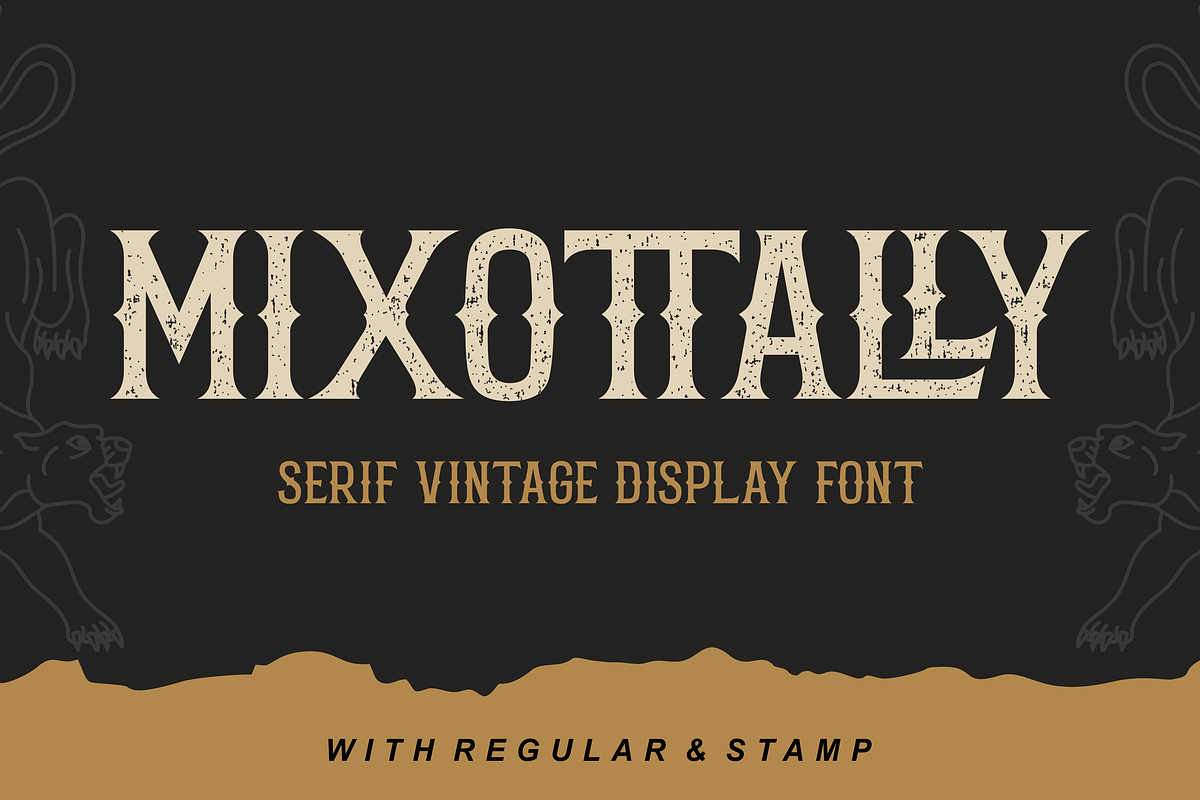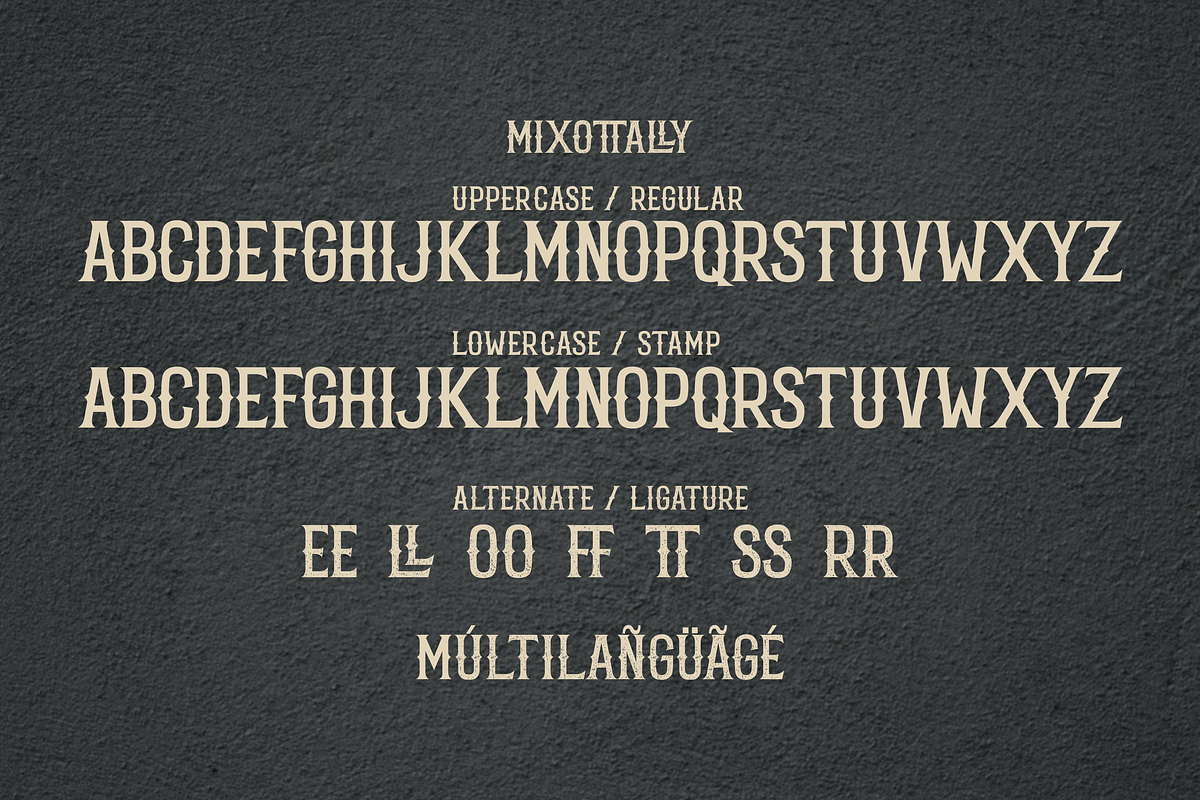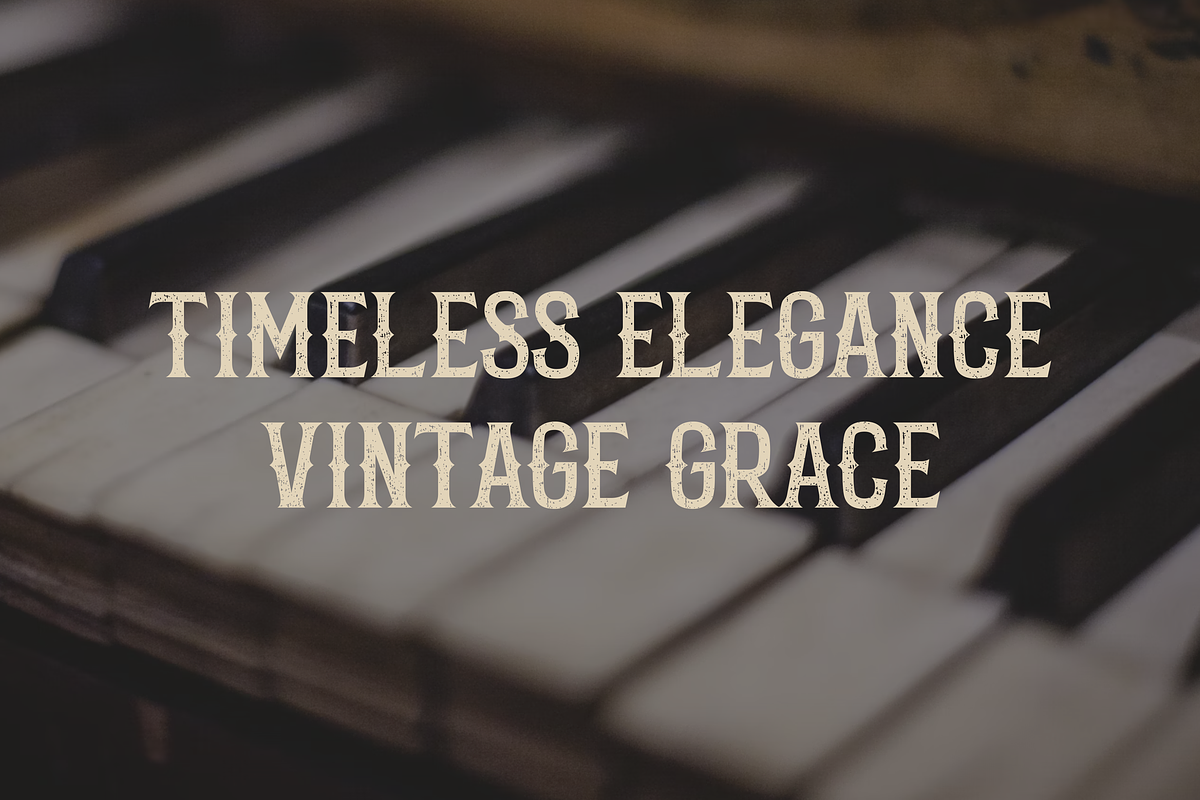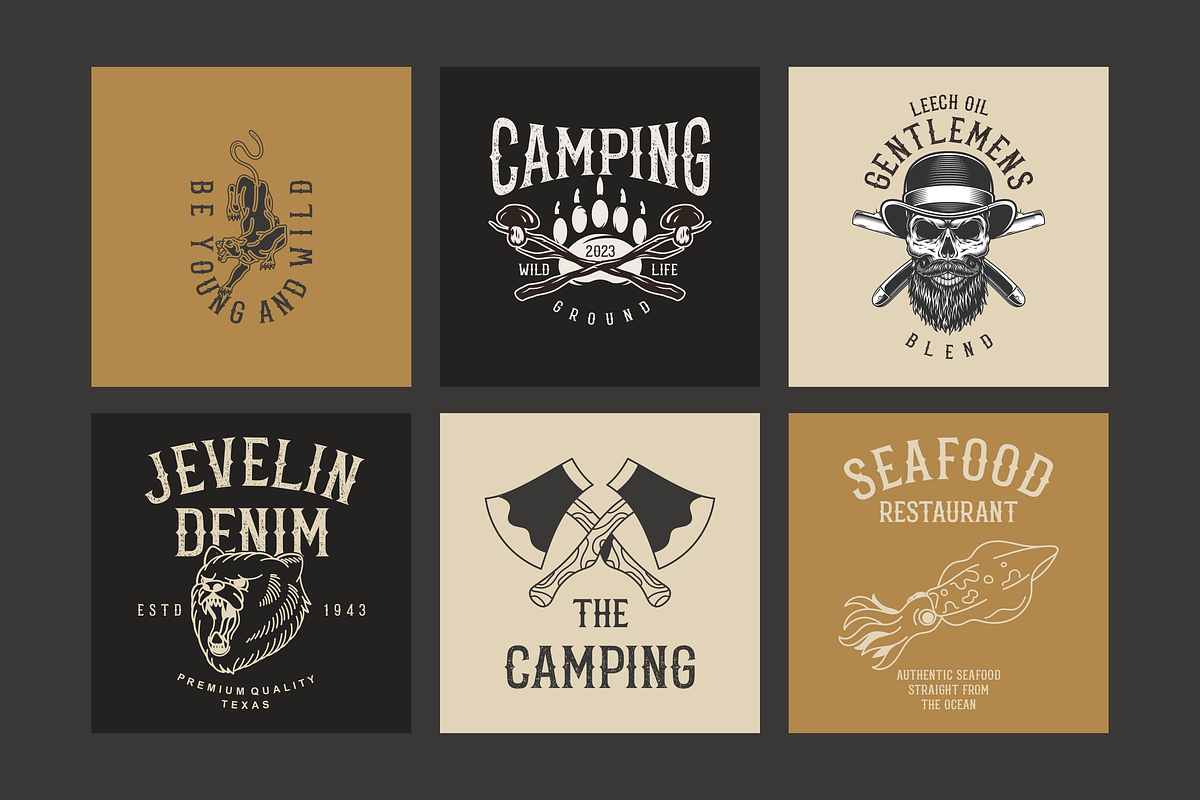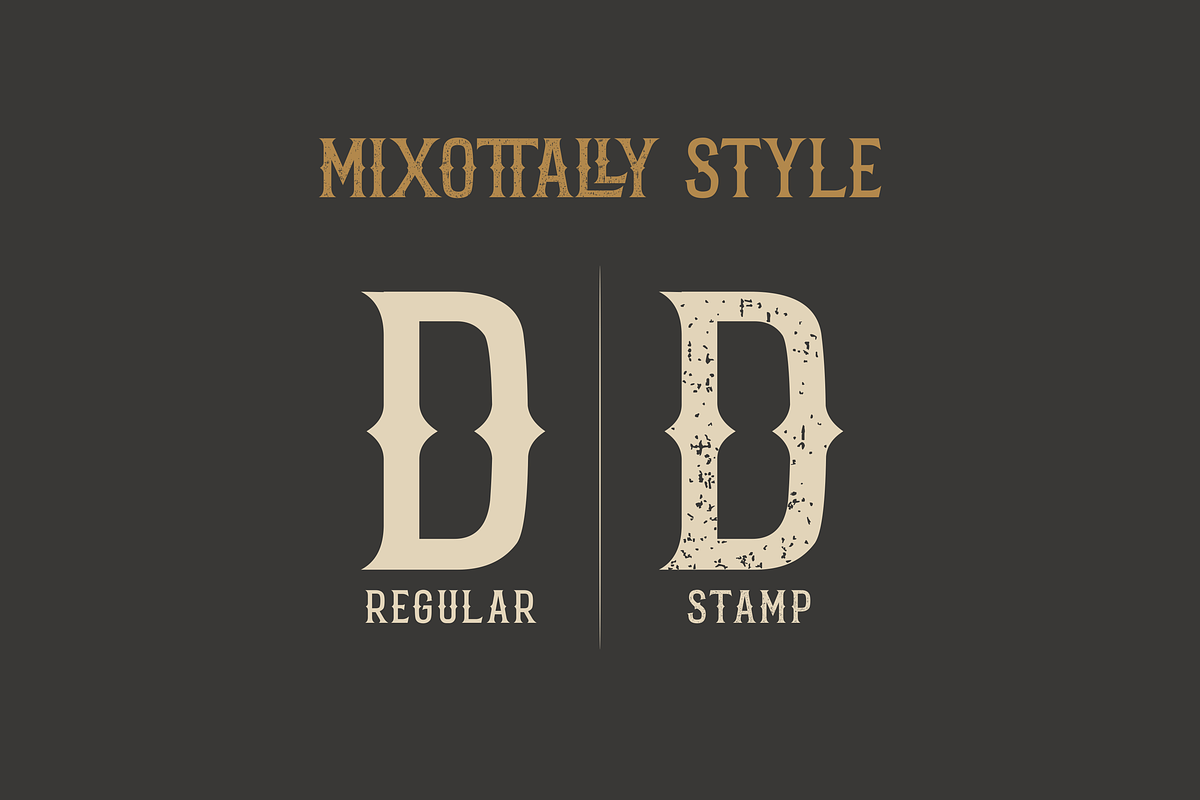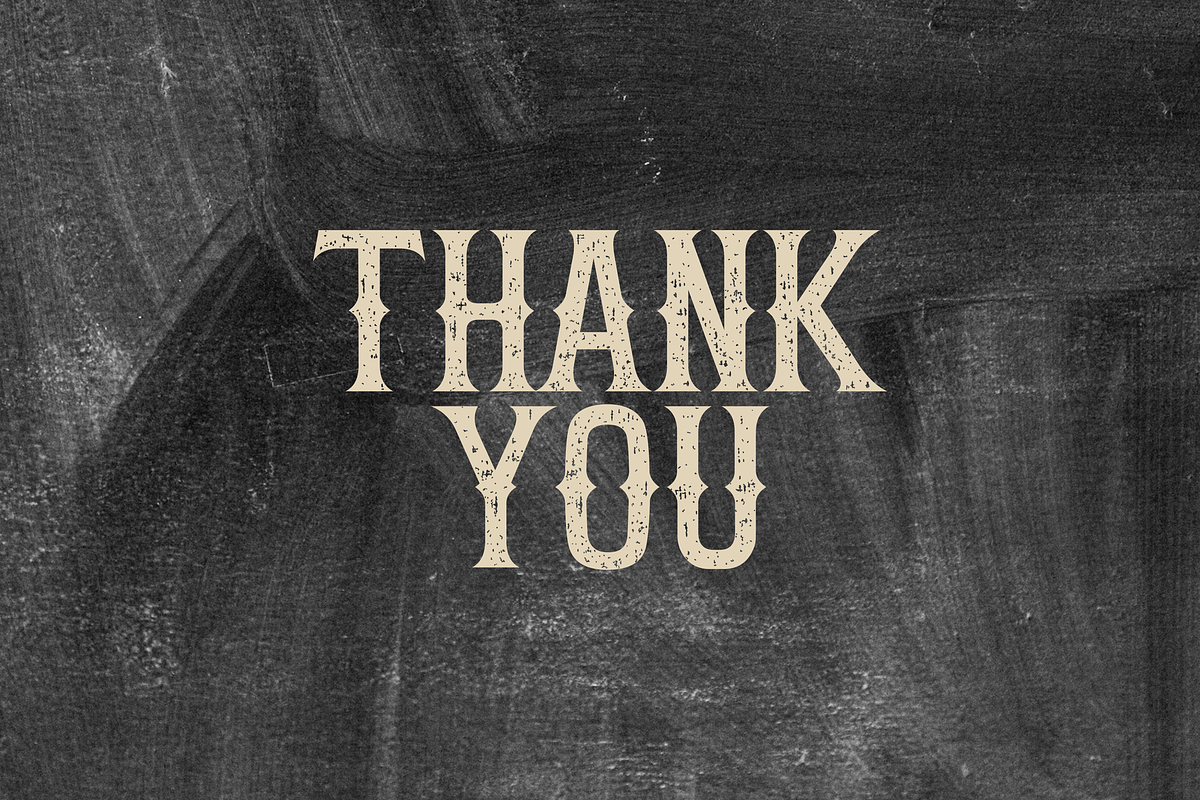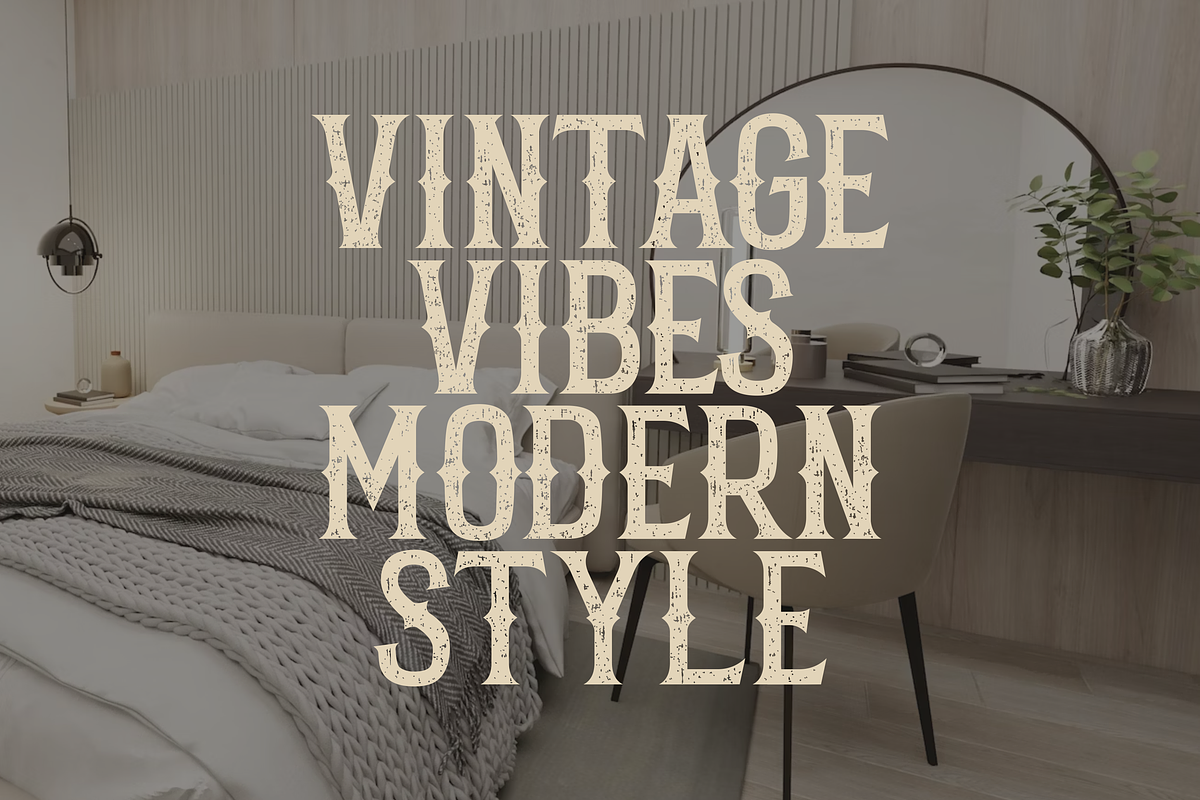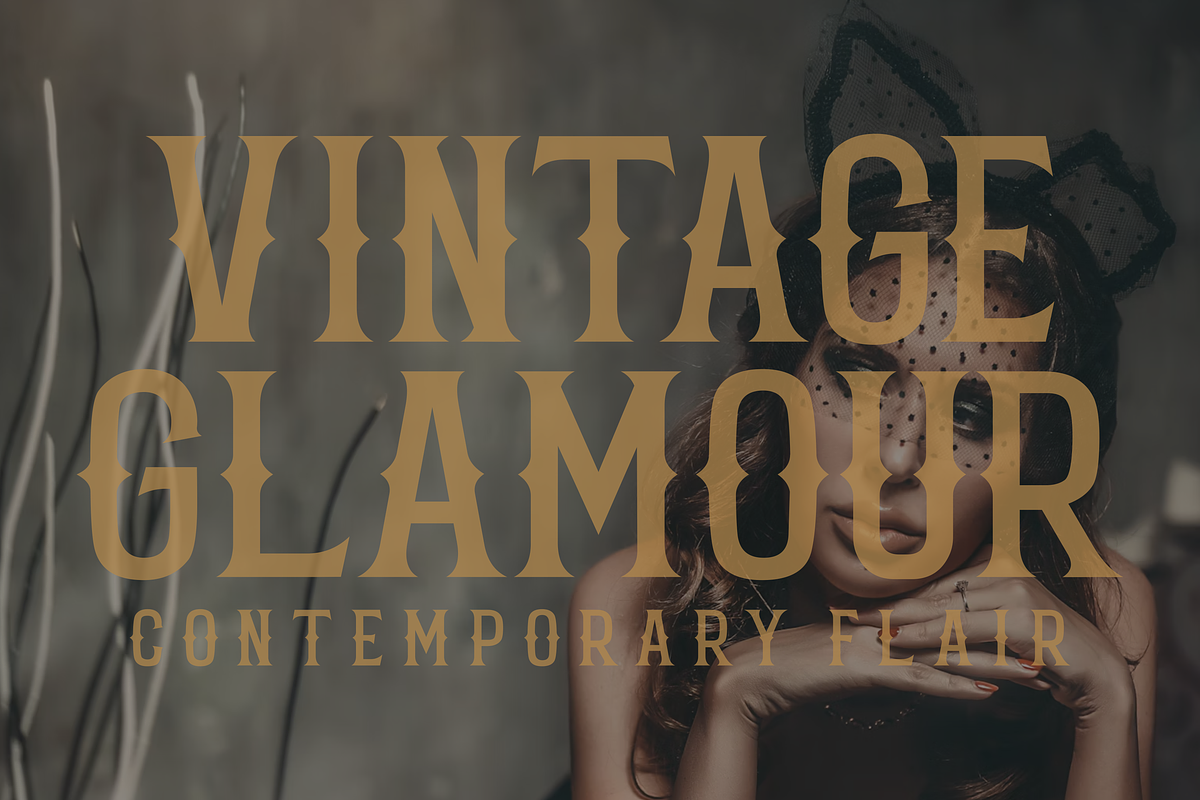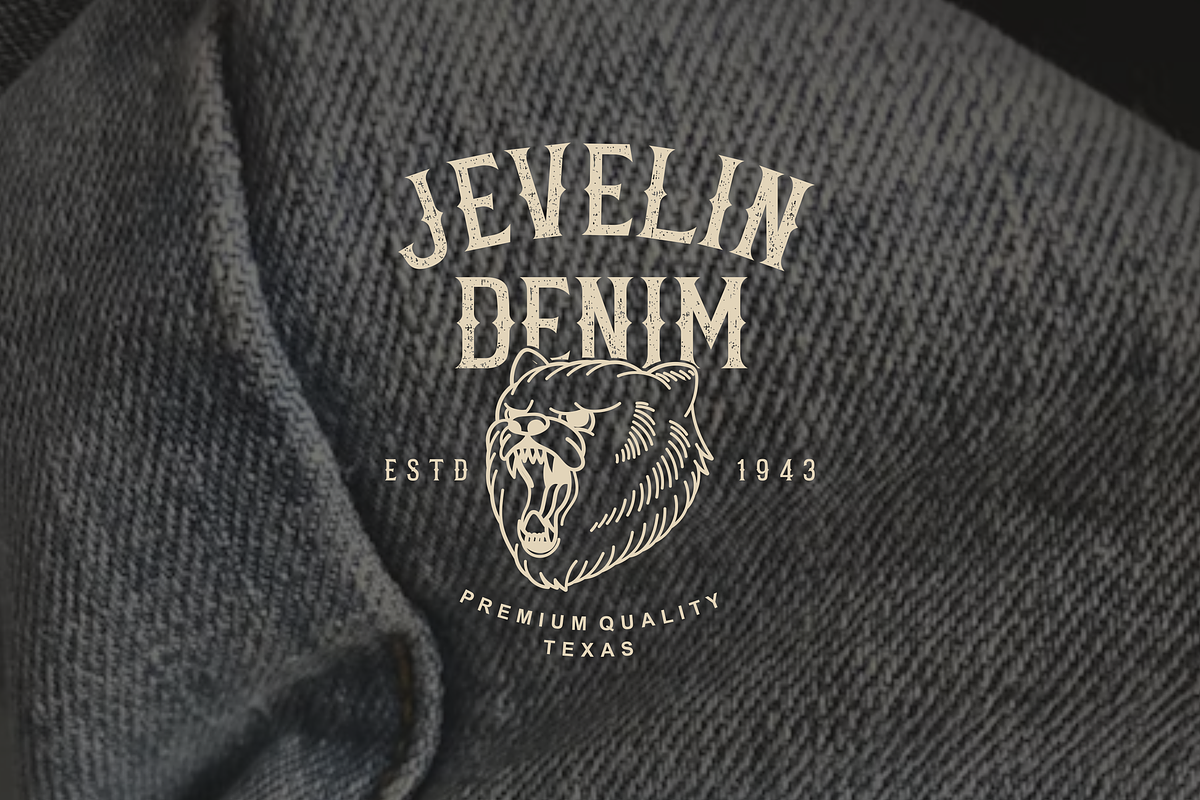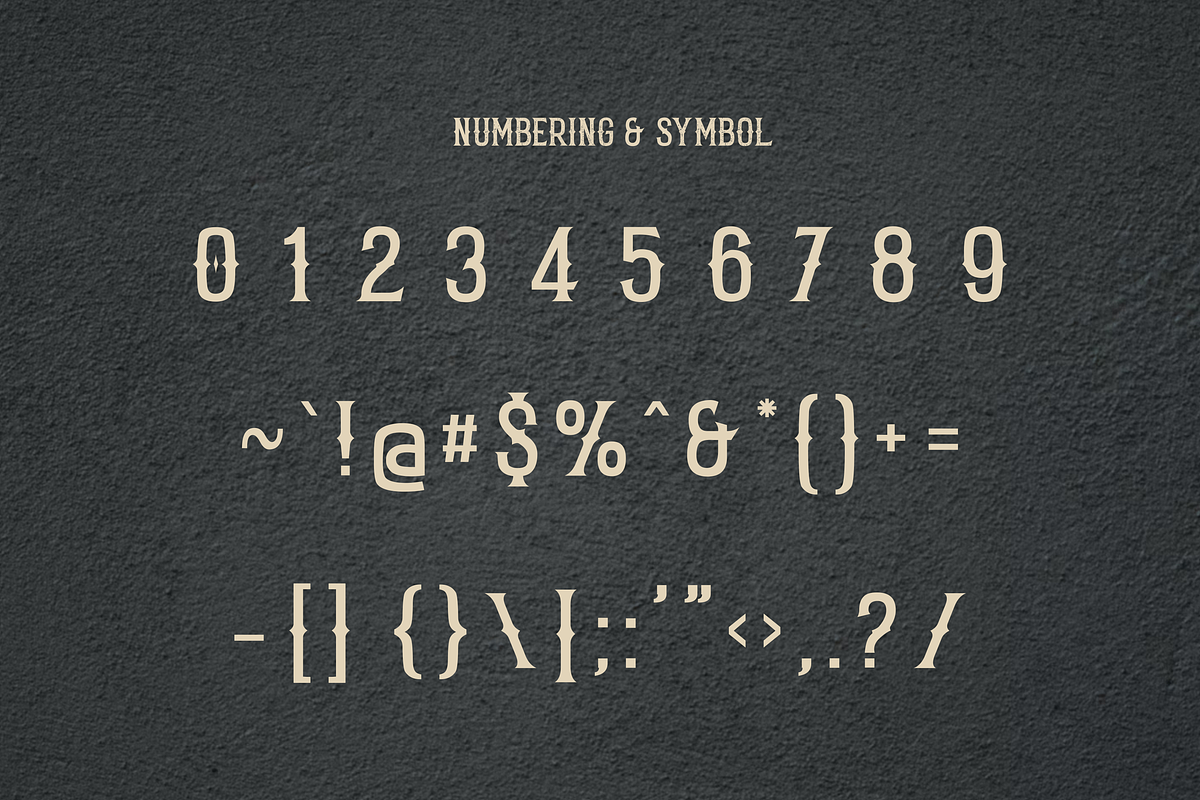
mixottally - serif vintage display f
Introducing Mixottally Serif Display Font – a perfect fusion of vintage and classic themes, available in both regular and stamp styles. The regular style exudes timeless elegance, ideal for branding and logo design. Meanwhile, the stamp style adds a touch of vintage authenticity, perfect for a weathered, classic look. Elevate your creative projects with this versatile font, designed for a range of applications from modern branding to nostalgic designs.